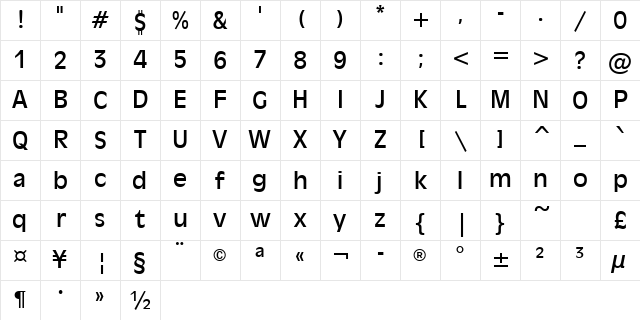
Incised901Greek BT Roman
Incised901Greek BT Family
Design Context for Incised901Greek BT
Incised901Greek BT is a composed and adaptable typeface that performs quietly and consistently across a wide range of design contexts.